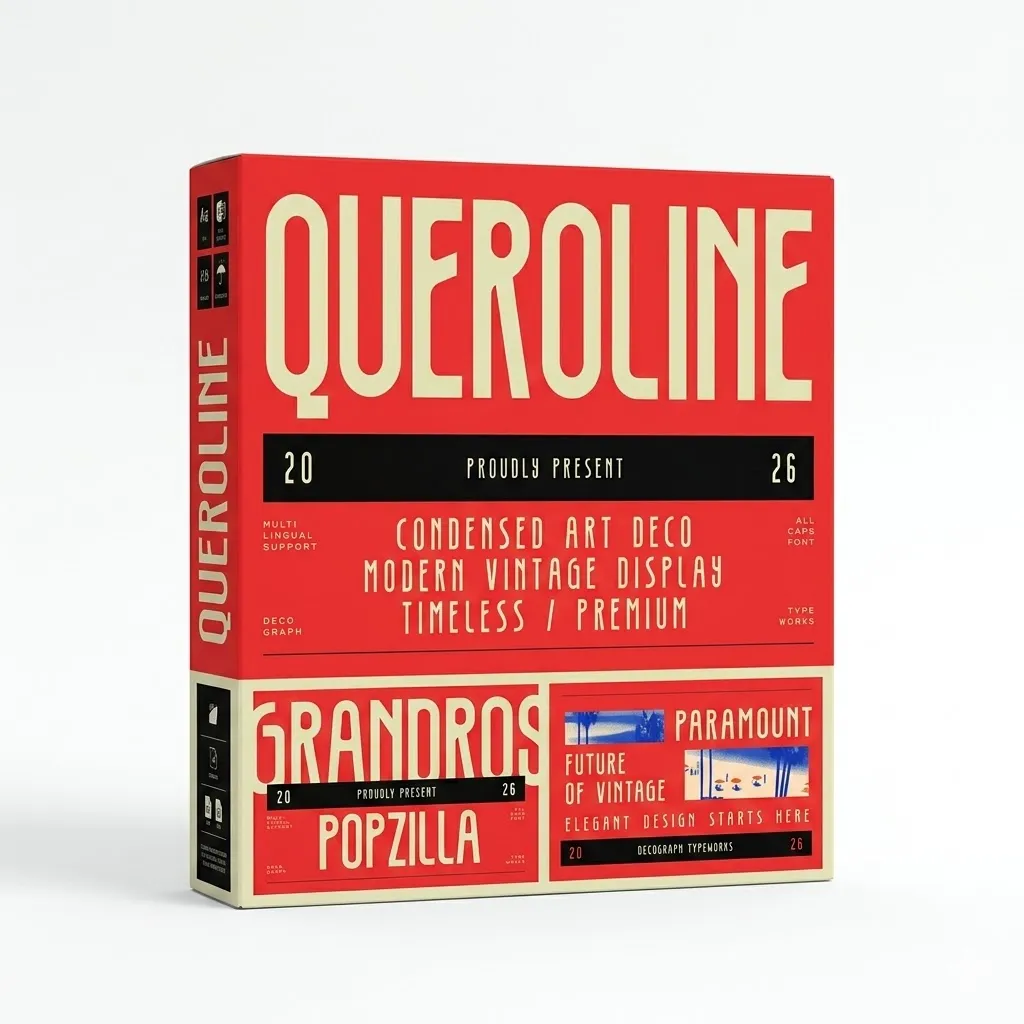
Queroline - Modern Art Deco Display Font
Queroline is a condensed art deco display font inspired by timeless vintage typography and elegant architectural lettering from the golden era of design. Featuring tall proportions, geometric construction, and refined retro aesthetics, it delivers a luxurious yet bold visual presence perfect for standout typography.
Best Used For:
Logo Design
Brand Identity
Poster Design
Packaging Design
Editorial Headlines
Restaurant Branding
Fashion Branding
Vintage Labels
Social Media Graphics
Advertising Campaigns
Font Features:
Uppercase Character Set
Multilingual Support
Numerals And Punctuation